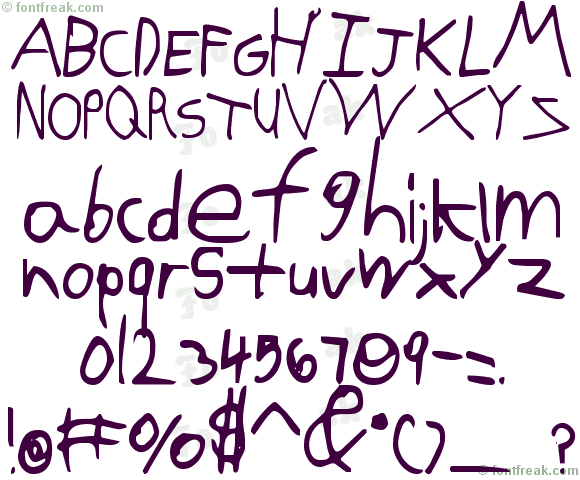
KG Domo is my FAVORITE
About KG Domo is my FAVORITE
KG Domo is my FAVORITE font, created by the talented Kimberly Geswein, is a whimsical and playful handwritten typeface that falls into the decorative category. This font exudes a casual charm, featuring a unique blend of rounded and irregular letterforms that evoke a sense of warmth and friendliness. The stroke weight is consistent but varies slightly to enhance its organic feel, while the spacing between characters is open enough to allow for easy readability, making it a great choice for a variety of design projects.
One of the standout qualities of this font is its versatility. It works exceptionally well for wedding invitations, where its playful nature can add a personal touch to the overall design. Additionally, KG Domo is perfect for children’s book covers, as it captures the imagination with its fun and engaging style. Restaurant menus can also benefit from this font, particularly in casual dining settings, where a friendly vibe is essential. Content creators will find it an excellent fit for social media graphics, adding a unique flair to posts that need to stand out in a crowded feed.
What truly makes this font stand out is its ability to convey emotion through its design. The charming, handwritten aesthetic invites connection and warmth, making it an excellent choice for any project that requires a personal touch. Whether you’re designing for a special occasion or creating everyday content, KG Domo is a delightful addition to your font library.